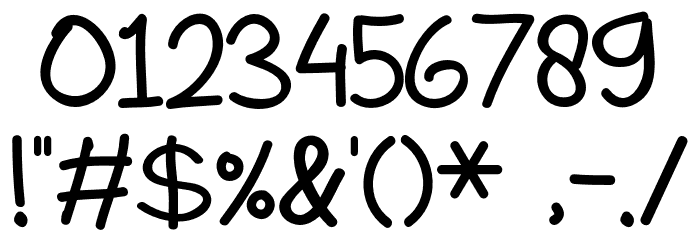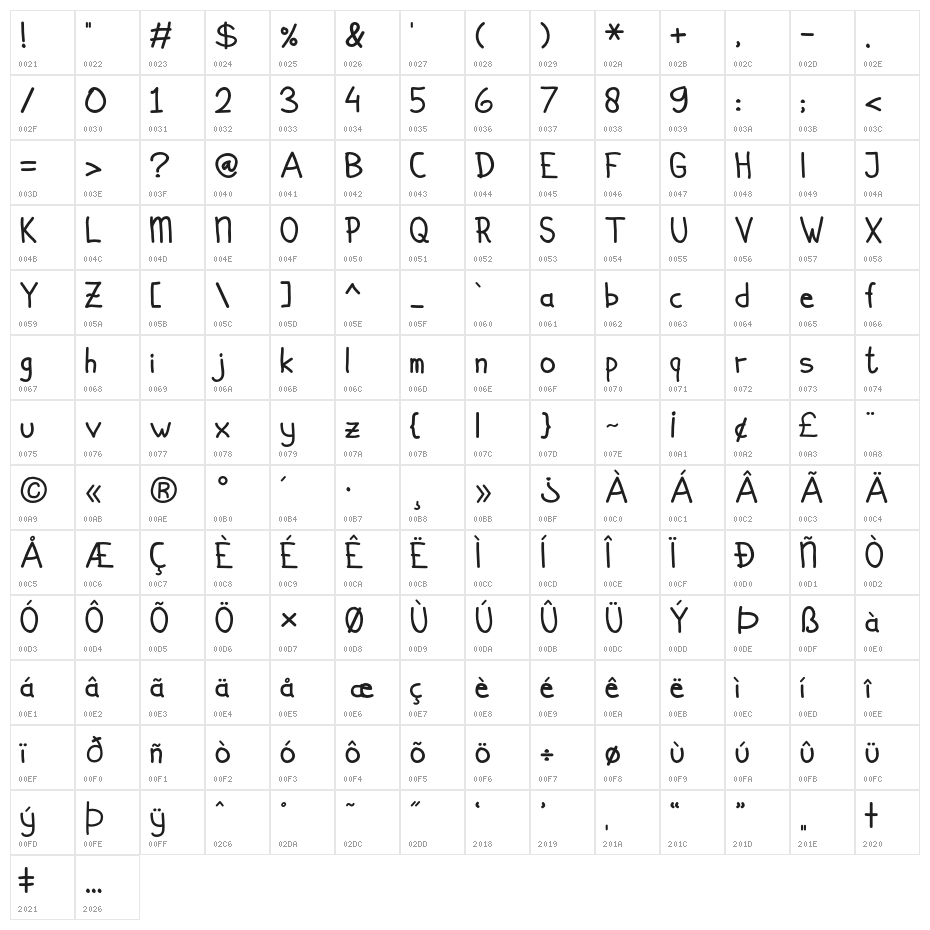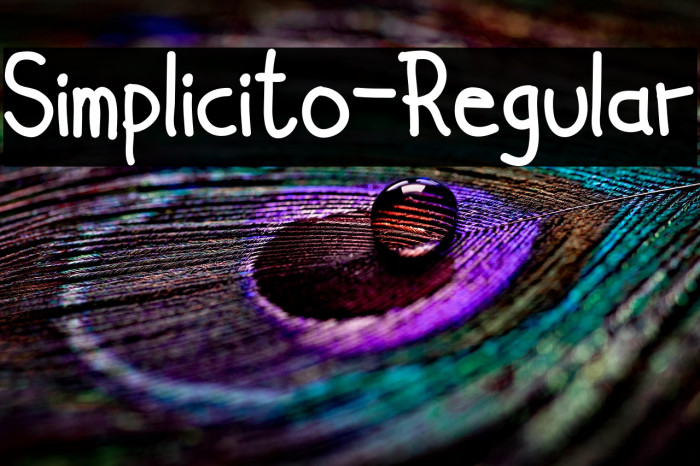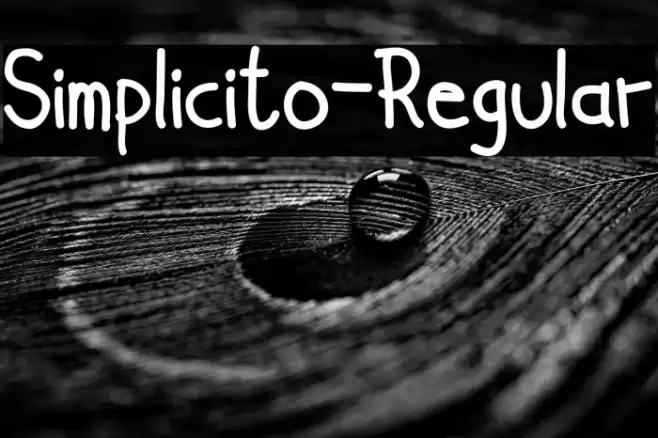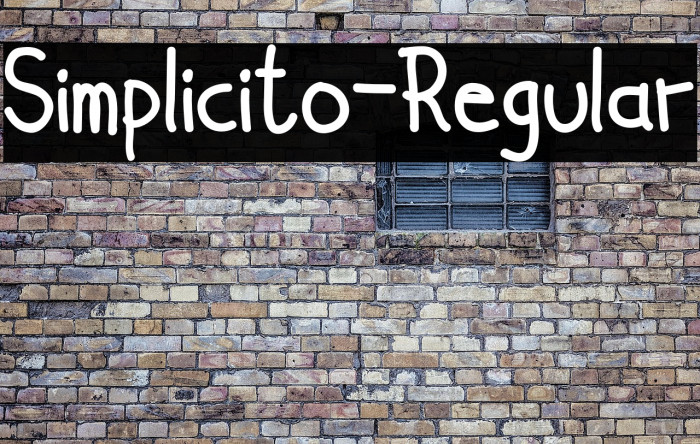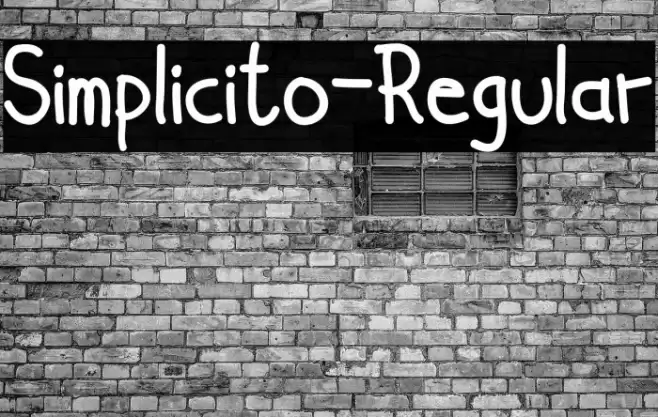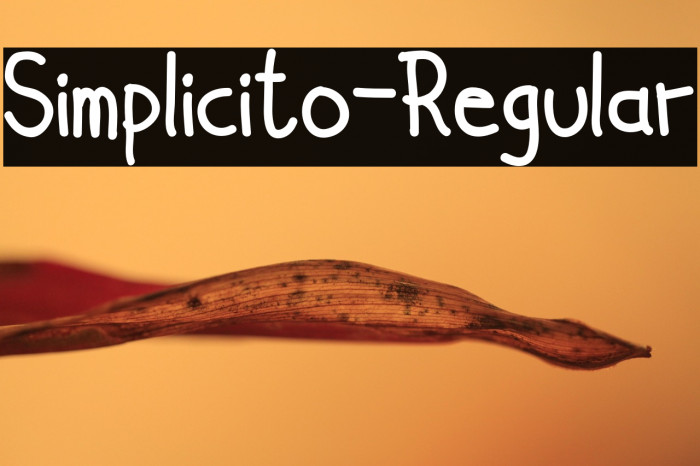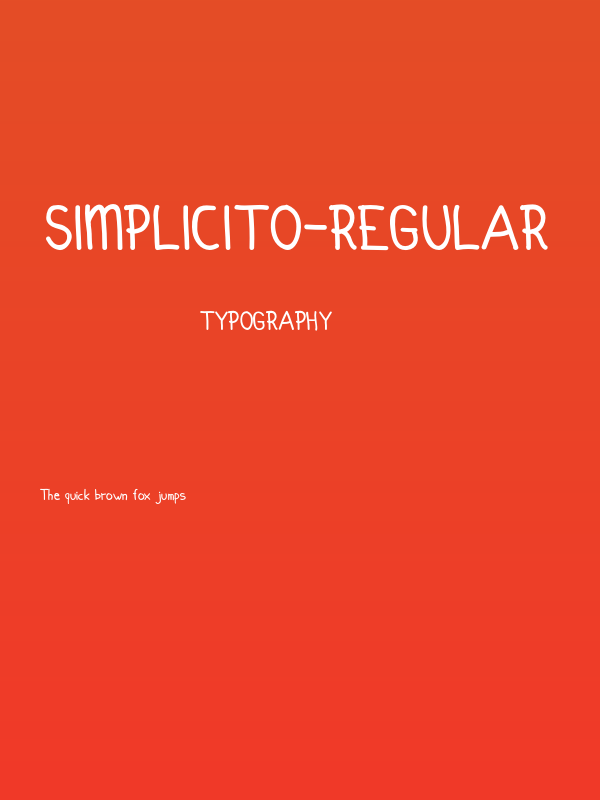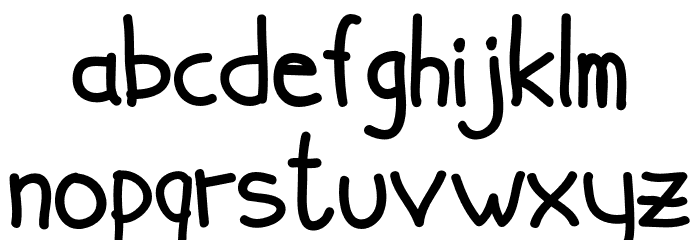
Simplicito-Regular Font
Simplicito-Regular Description
This font features a playful and casual handwritten style with rounded edges and a friendly appearance. The characters are slightly irregular, giving it a natural and organic look. The uppercase and lowercase letters maintain a consistent flow, while the numerals and special characters complement the overall style. The font's informal nature makes it suitable for projects that require a personal touch or a relaxed vibe. Its simplicity and readability ensure it can be used effectively in various design contexts.
| Proposed Projects | Ideal for greeting cards, children's books, casual branding, and social media graphics. |